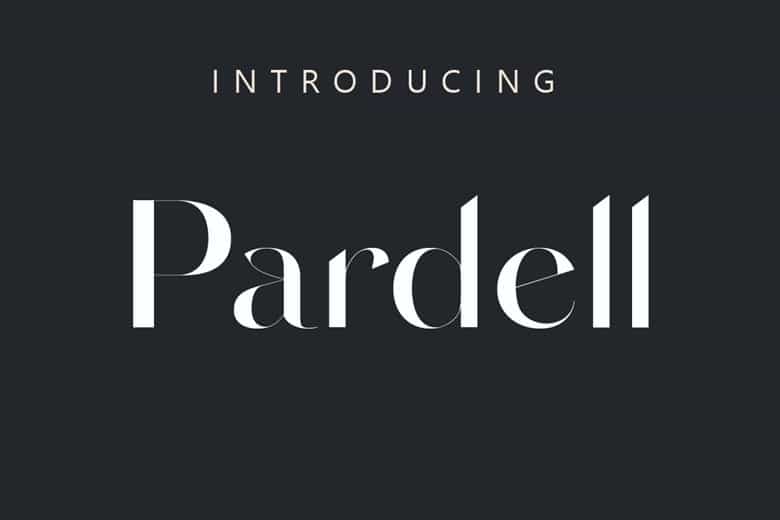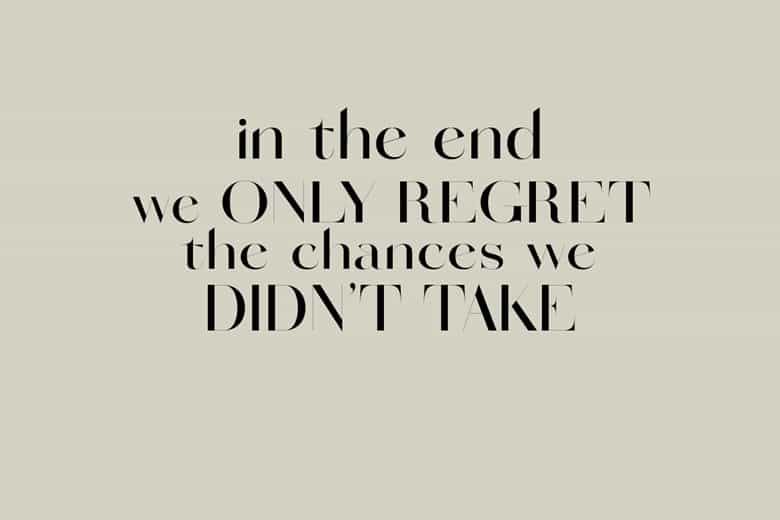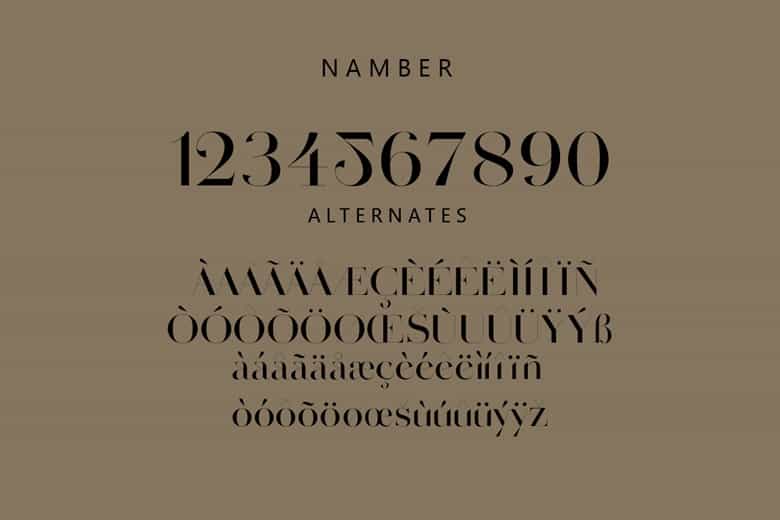
Discover Pardell Font, part of the Sans Serif collection—a versatile and unique font perfect for adding a personal touch to your projects. Download it for free and enjoy crafting designs with style, from invitations to social media posts. This font is available exclusively for personal use, giving you the freedom to create without limits. Unlock your creativity with Pardell Font today!
Pardell is a high quality sans serif font that is designed by Metafontsy and is available for free download and personal use. The free version provides all uppercase and lowercase letters and a few special characters too.